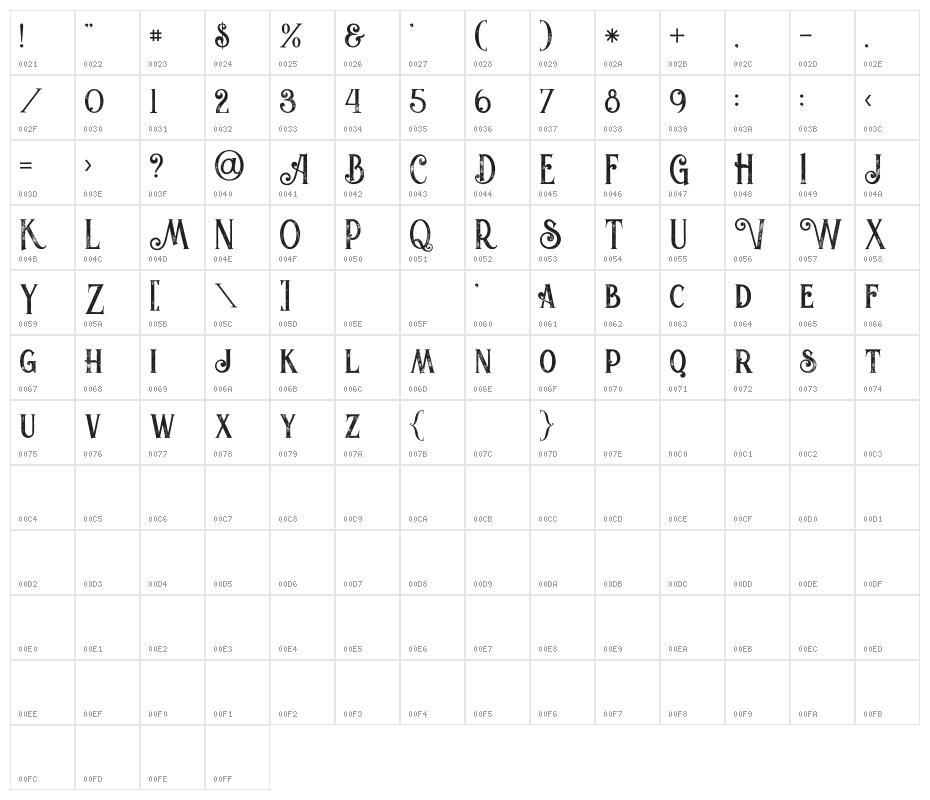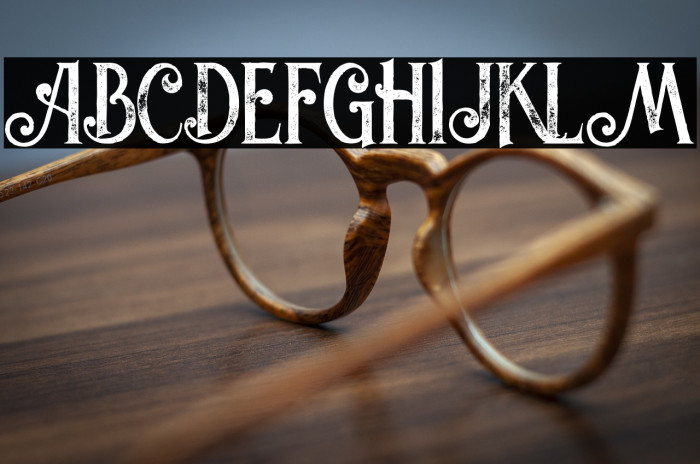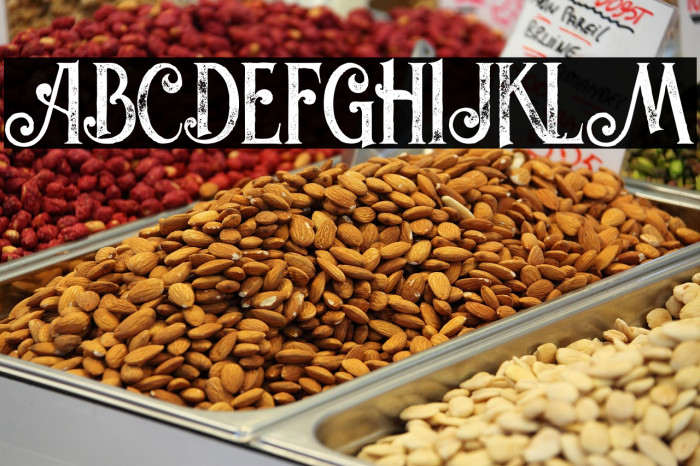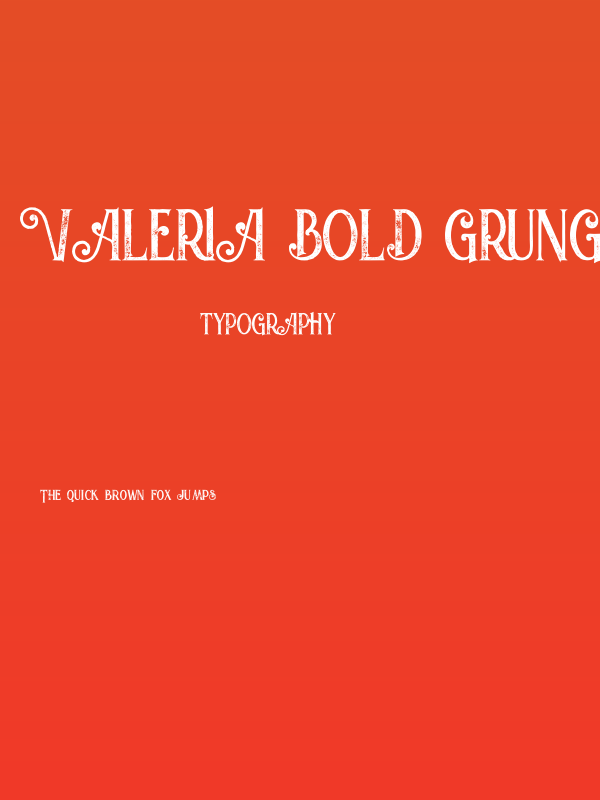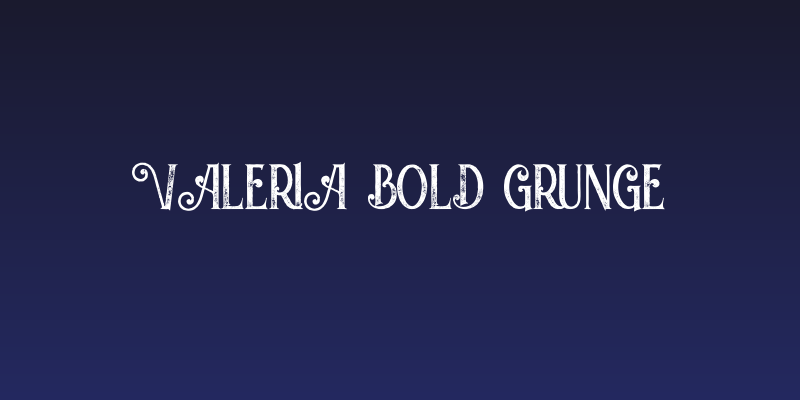
Valeria Bold Grunge Font
Valeria Bold Grunge Description
This font features a bold and grunge style with a decorative flair. The uppercase letters are adorned with intricate swirls and distressed textures, giving it a vintage and artistic appearance. The lowercase letters maintain the same decorative elements, ensuring consistency throughout the typeface. Numbers and special characters are also designed with the same grunge effect, making them suitable for creative and edgy designs. The overall look is both bold and expressive, perfect for making a statement in any project.
| Overall Style | Vintage, Decorative |
| Proposed Projects | Ideal for posters, album covers, vintage-themed designs, and artistic branding projects. |